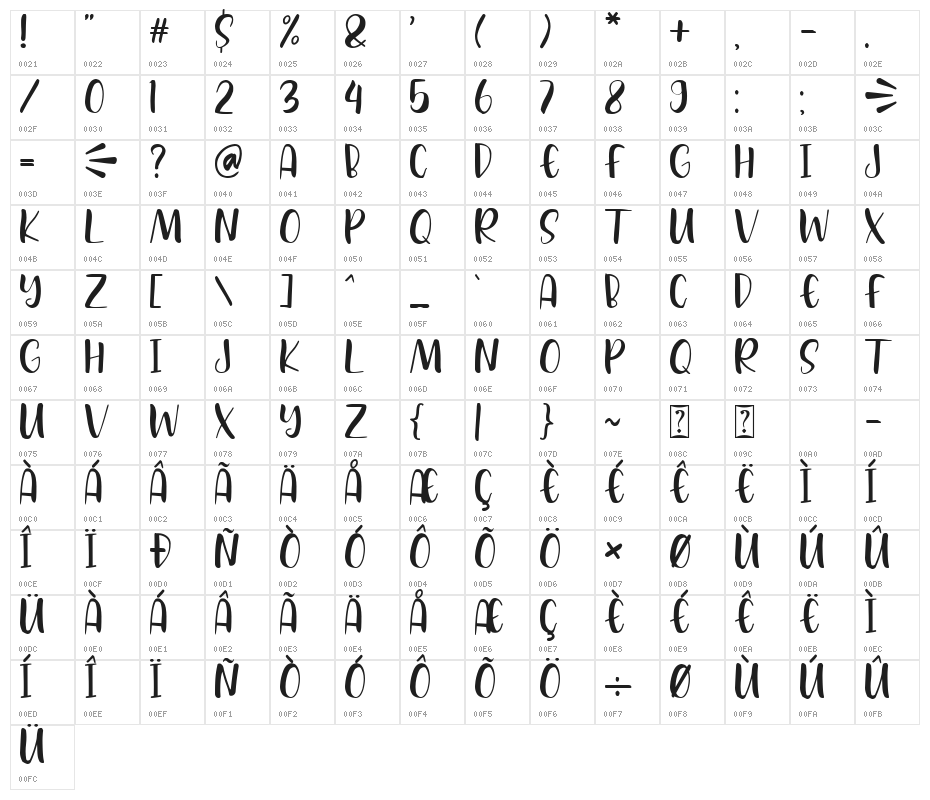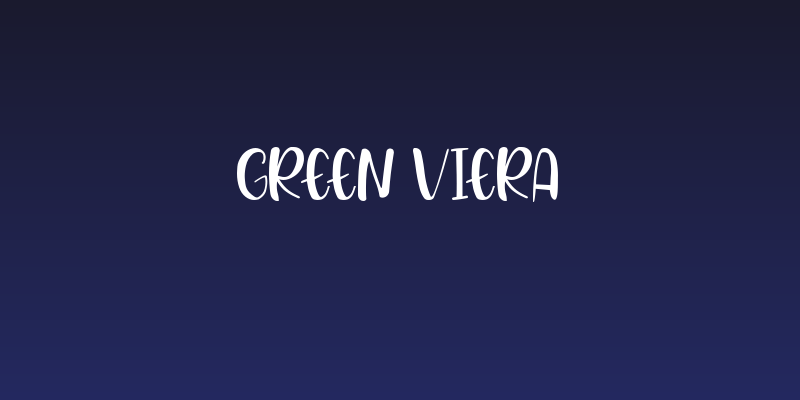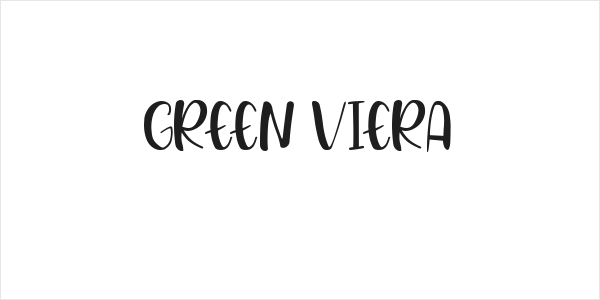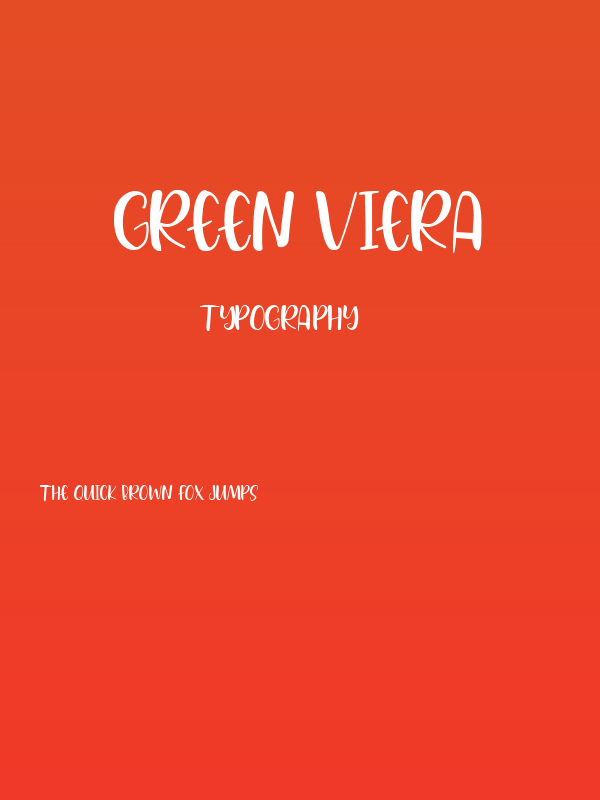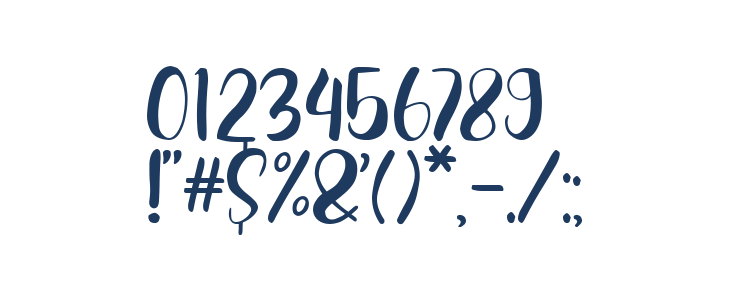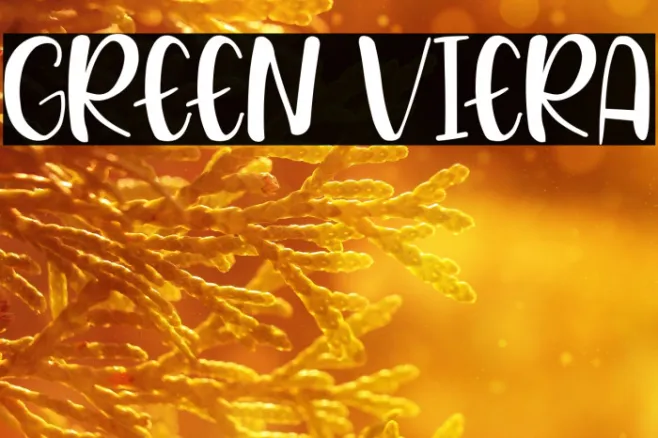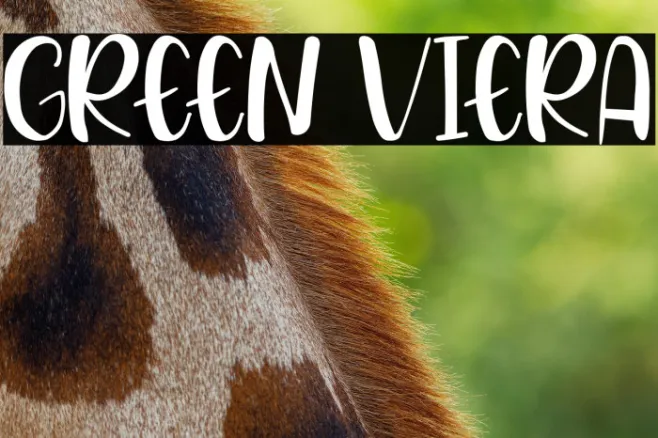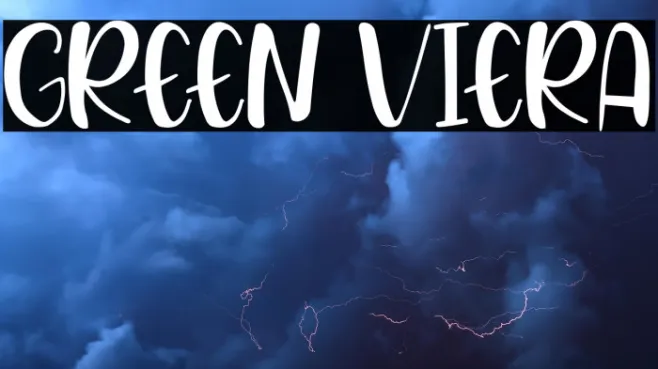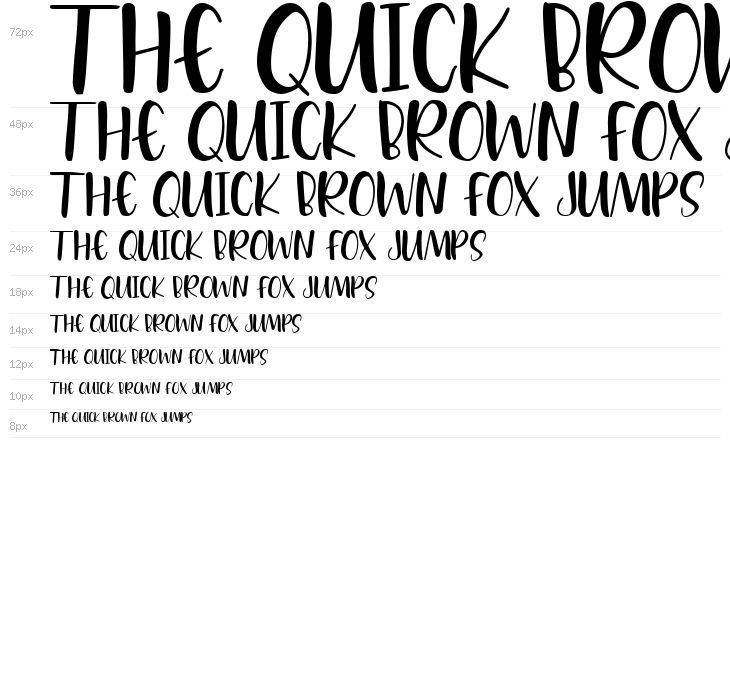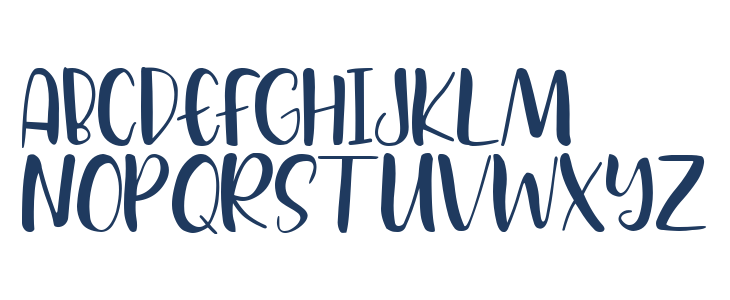
Green Viera Font
Green Viera Description
This font features a playful and energetic script style, characterized by its bold and flowing letterforms. The uppercase and lowercase letters maintain a consistent rhythm, with slightly exaggerated curves and a hand-drawn aesthetic that adds a personal touch. The numbers and special characters are equally dynamic, complementing the overall style with their rounded and expressive shapes. The font's design is both approachable and stylish, making it suitable for a variety of creative applications. Its unique character is ideal for projects that require a touch of whimsy and individuality.